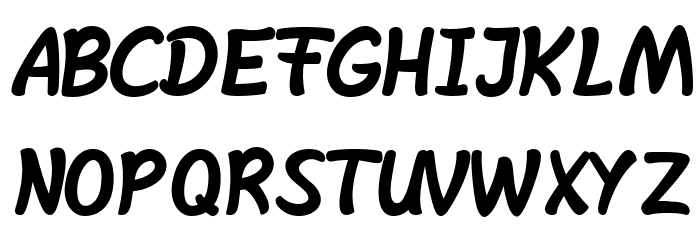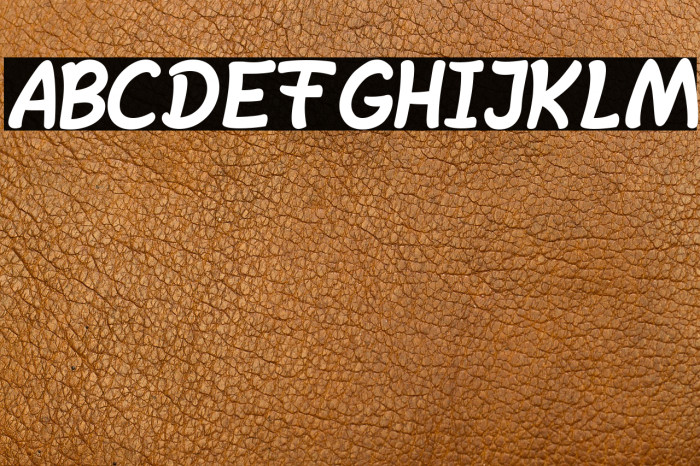
Shelta Hand* Bold Italic Font
This font features a bold and italicized style with a handwritten appearance. The characters are rounded and slightly slanted, giving a dynamic and playful feel. The strokes are thick and consistent, providing a strong visual impact. The uppercase and lowercase letters maintain a uniform style, while the numbers and special characters complement the overall design. This font is suitable for projects that require a casual and friendly tone, such as invitations, posters, and branding materials.
A bold, italic, handwritten font with a playful and dynamic style.
- Proposed Projects: Ideal for invitations, posters, branding materials, and any project needing a casual, friendly tone.
- Overall Style: Playful
- Use Case: Headlines, Logos, Invitations